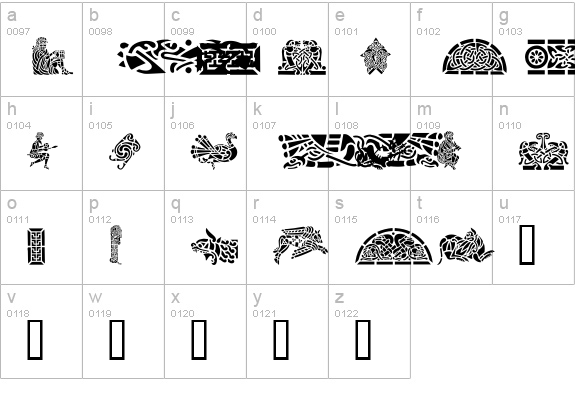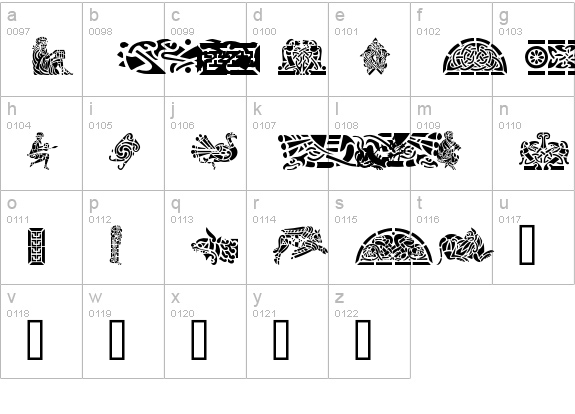
GE Celtic Art Font Details
The GE Celtic Art font is a stunning display typeface that beautifully captures the intricate and artistic essence of traditional Celtic designs. With its ornate details and intricate patterns, this font exudes a sense of elegance and sophistication. The intertwining lines and geometric shapes create a mesmerizing visual appeal that is perfect for adding a touch of Celtic charm to your projects. What makes the GE Celtic Art font even more appealing is that it is free to download at FontsMarket.com. This means you can easily access this unique and eye-catching font to enhance your designs without any cost. Whether you're working on invitations, posters, or any other creative project that could benefit from a touch of Celtic flair, the GE Celtic Art font is sure to make a lasting impression. Download it today and unleash your creativity with this captivating typeface.